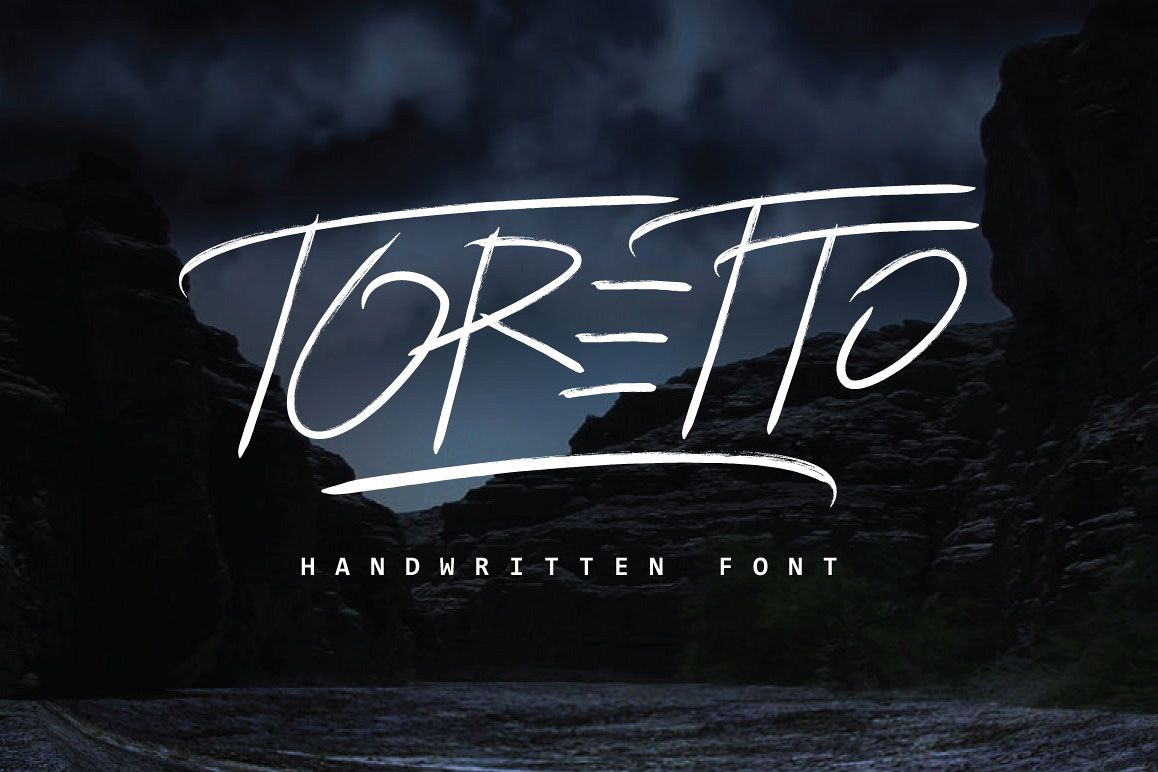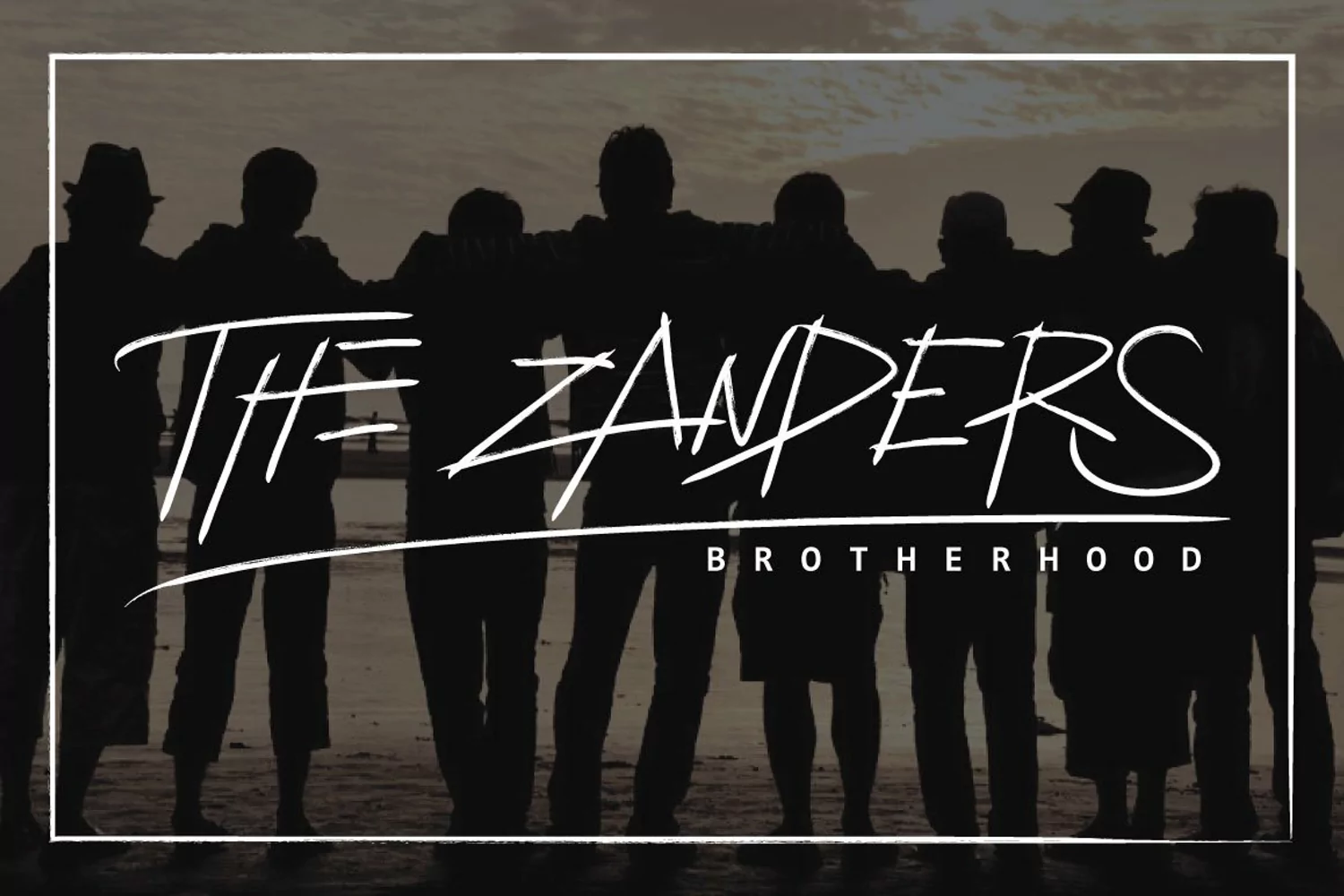
Toretto Typeface
Introducing a quick dry strokes Toretto Typeface! An elegant, straight hand-brushed font, designed with branding in mind.
Handwritten upper and lowercase characters, numerals, punctuations
and extra ligatures for more complex letter-combinations like tt, ah, he
and more..
Toretto looks gorgeous on logos, websites, invitations, greeting cards, magazines, business cards, packaging and many more!